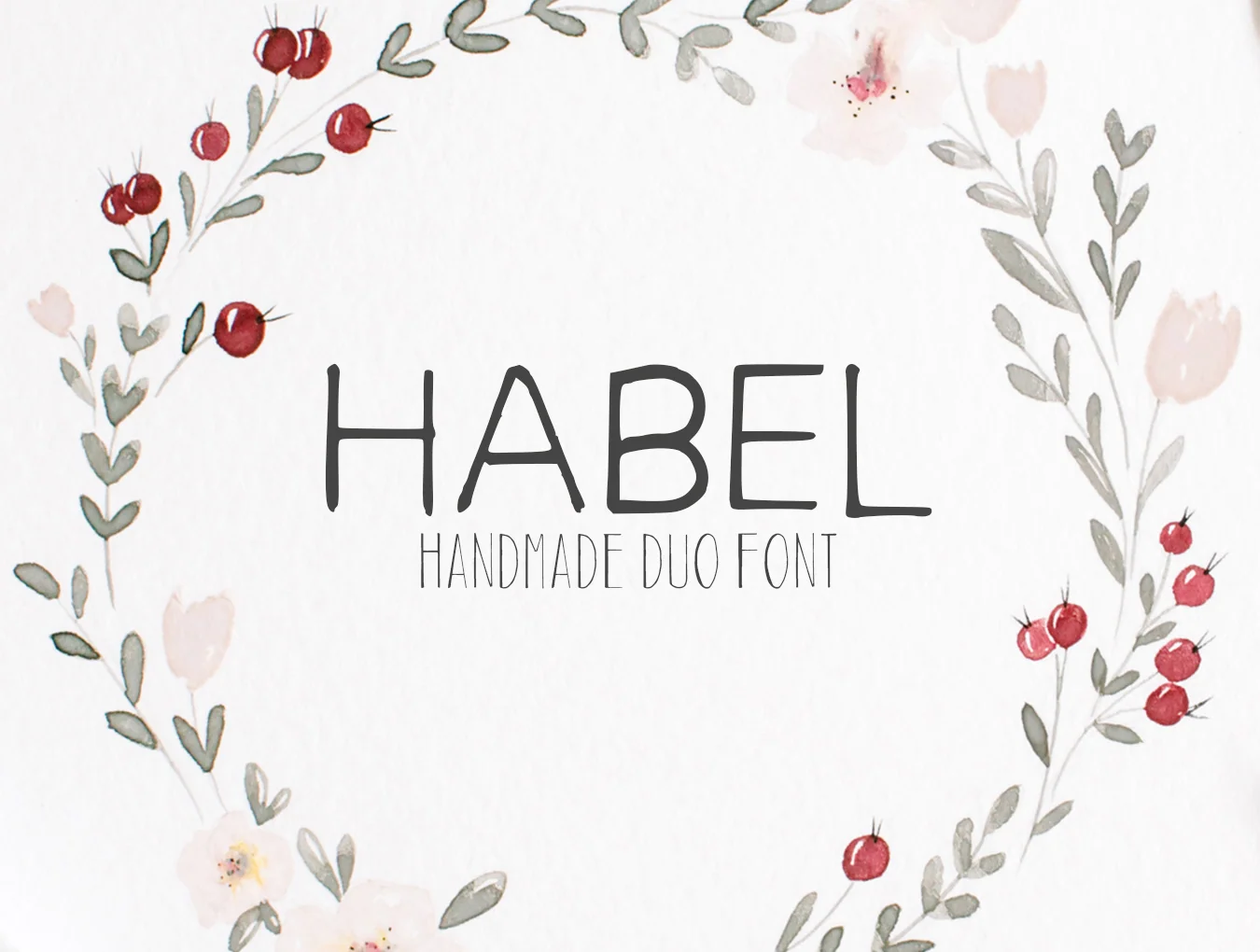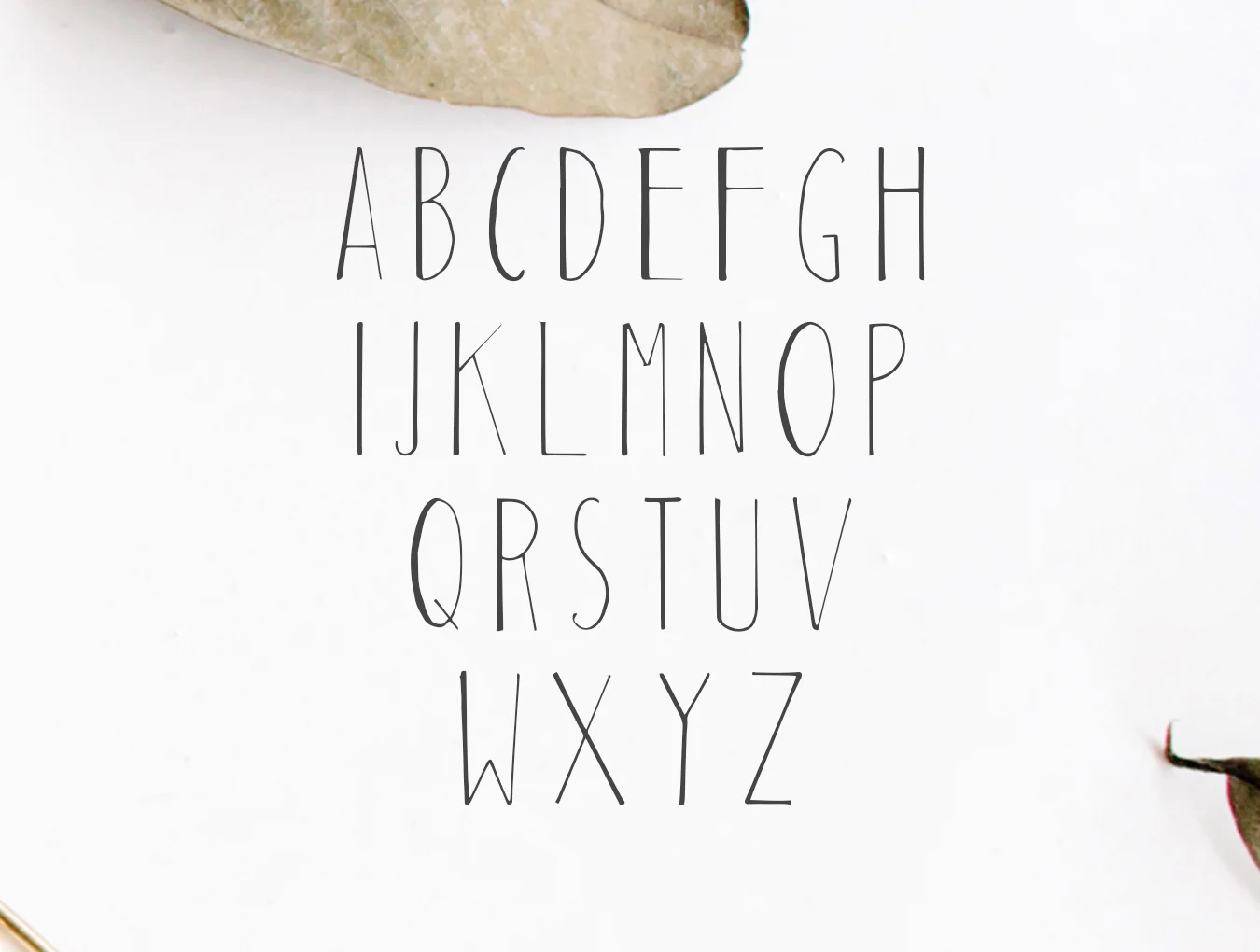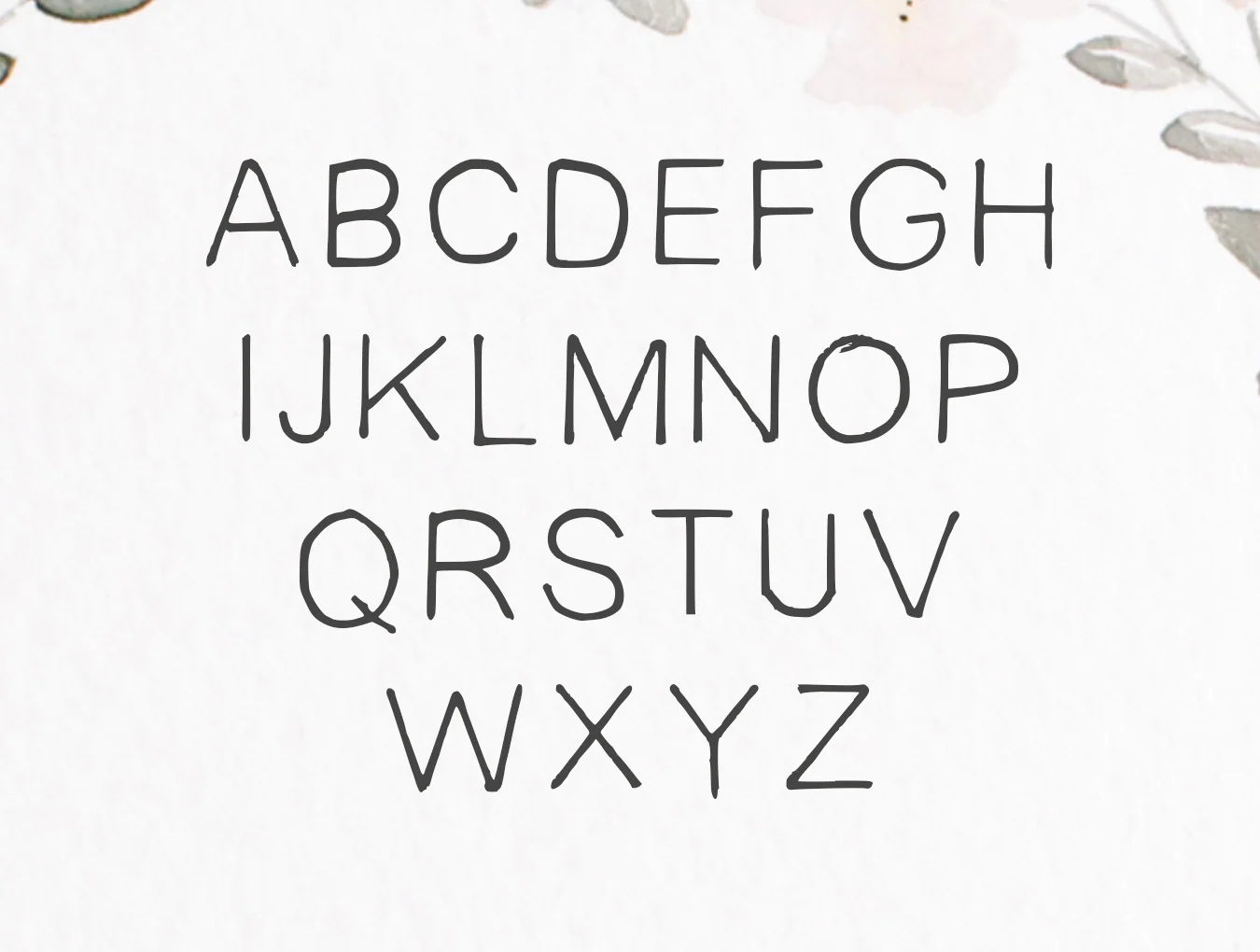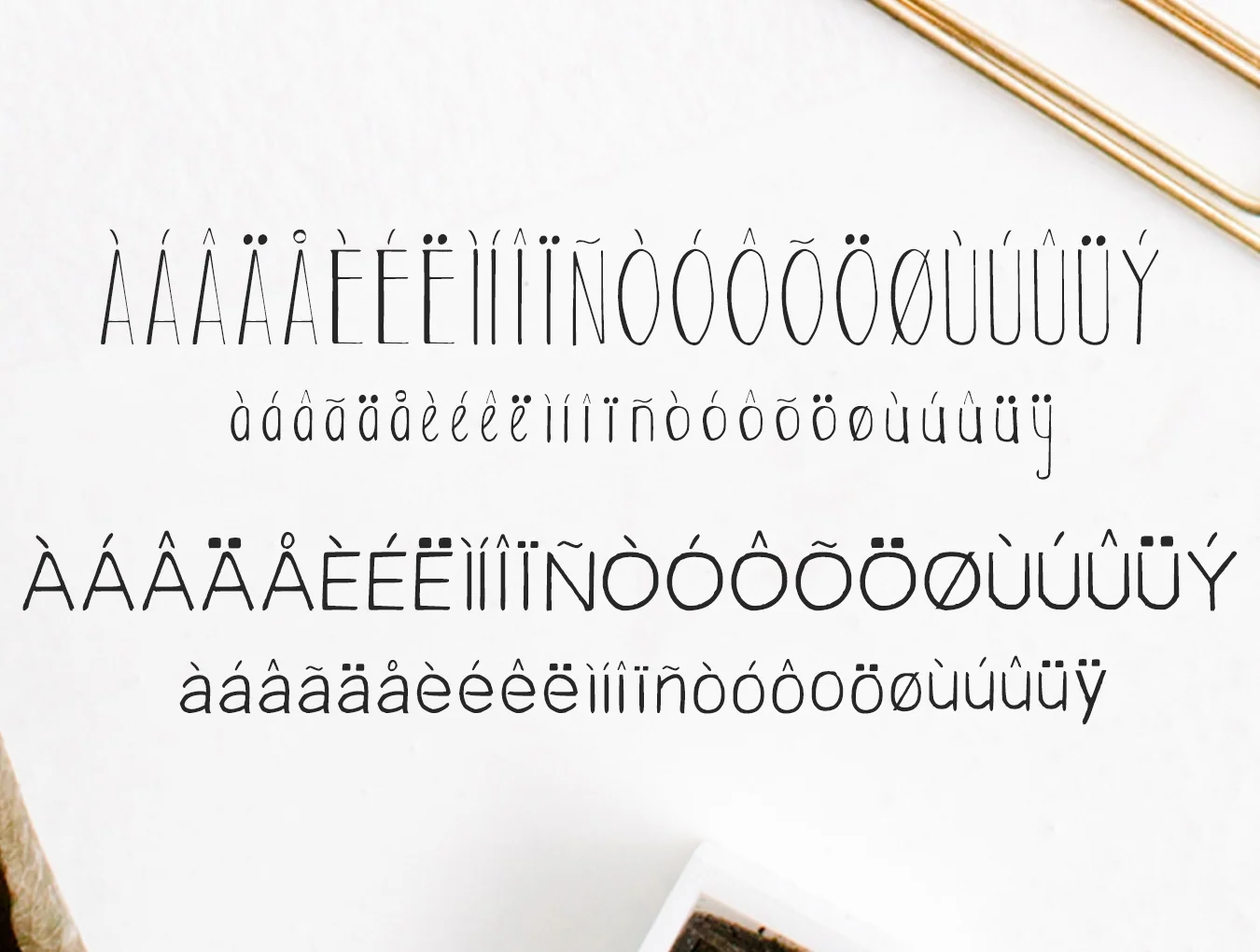
Habel Handmade Duo Font
Habel Handcrafted Duo Typeface with Free Bonus
Handwritten typeface
Habel with 141 characters
Adouliss featuring 148 characters
Standard weight
Habel Handmade Duo Font is a pair of handcrafted brush script styles with uppercase letters, numbers, punctuation, and alternates. Use wide-spaced caps for an elegant feel, or mix upper and lowercase for a timeless look. Ideal for quotes, branding, logos, merch, social posts, displays, headers, invitations, weddings, titles, and packaging.